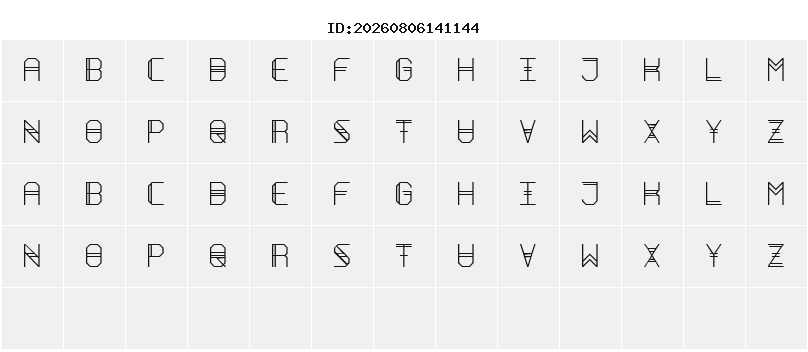
About Ontwerp.ttf
Ontwerp.ttf is a modern, elegant sans-serif font designed for ultimate readability and visual harmony. Perfect for branding, headlines, web design, and print materials.